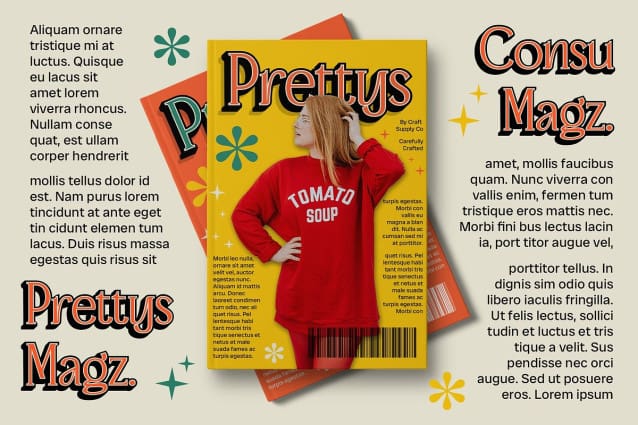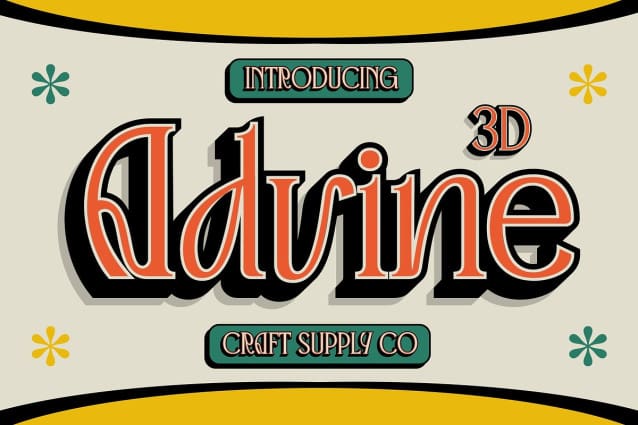
Advine 3D Font
Advine 3D Font is a serif font with an elegant and beautiful Art Nouveau style, exuding grace in every design. Its retro and 3D shape adds a unique dimension, perfect for all beautiful designs that require a touch of vintage charm and sophistication.
With its graceful curves and intricate details, Advine 3D offers a fresh take on serif fonts. The elegant Art Nouveau style creates a timeless and refined look, while the retro and 3D shape adds a touch of nostalgia and depth, making it ideal for elegant branding, invitations, and other projects that require a touch of retro elegance.
Whether you’re designing a luxurious wedding invitation or creating a stunning logo, Advine 3D is sure to make an impression. Its elegant style and retro shape make it perfect for designs that demand attention and convey a sense of beauty and sophistication.
Despite its intricate appearance, Advine 3D is versatile and easy to use. The font works well in both large and small sizes, making it suitable for a variety of applications, from headlines and banners to body text and more. With its blend of elegance, retro charm, and 3D shape, Advine 3D adds a unique and beautiful touch to any design.